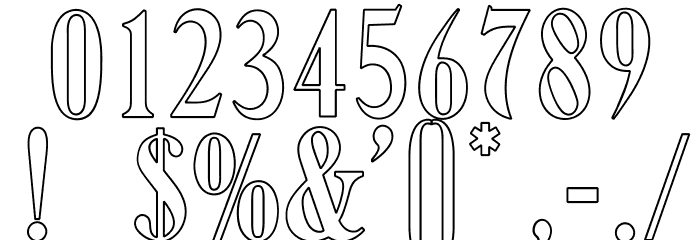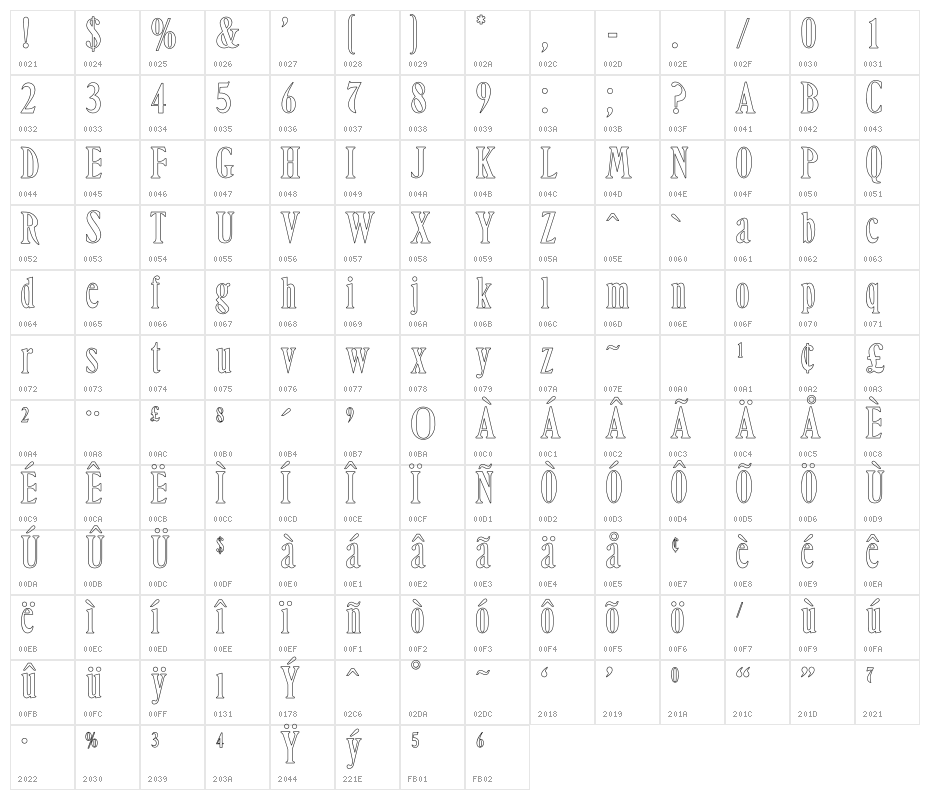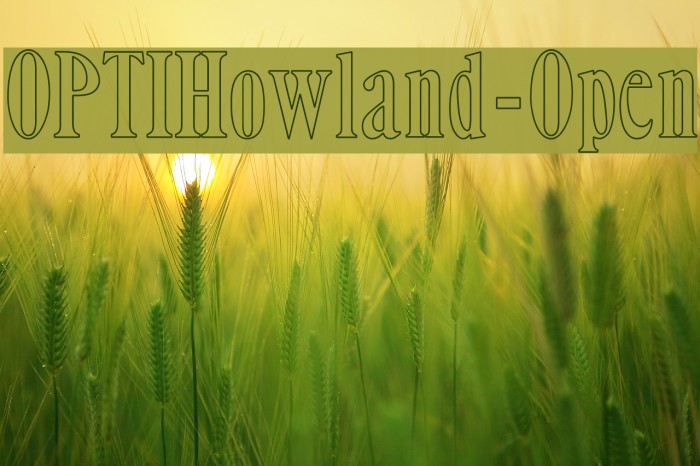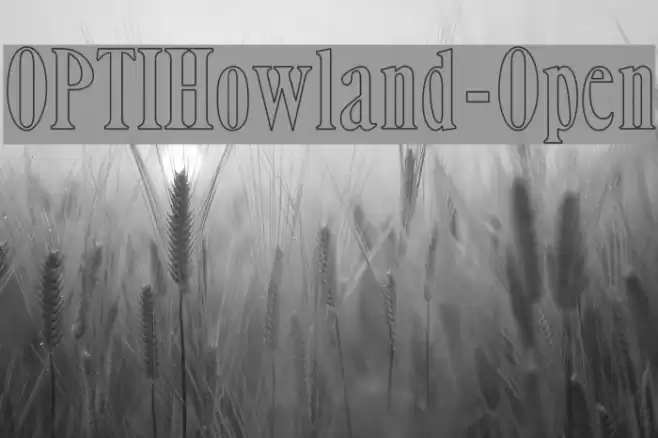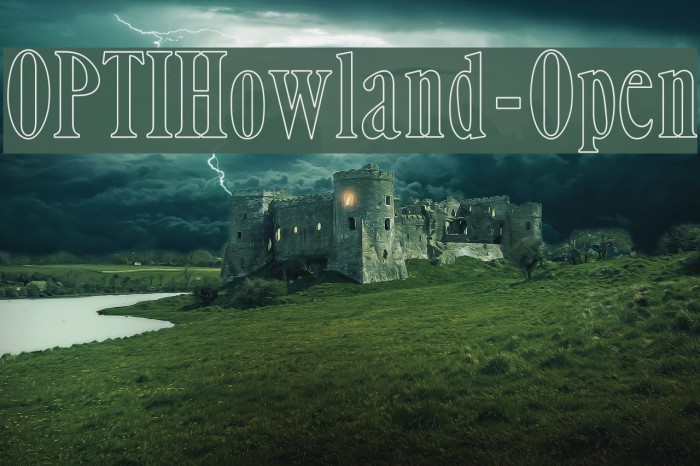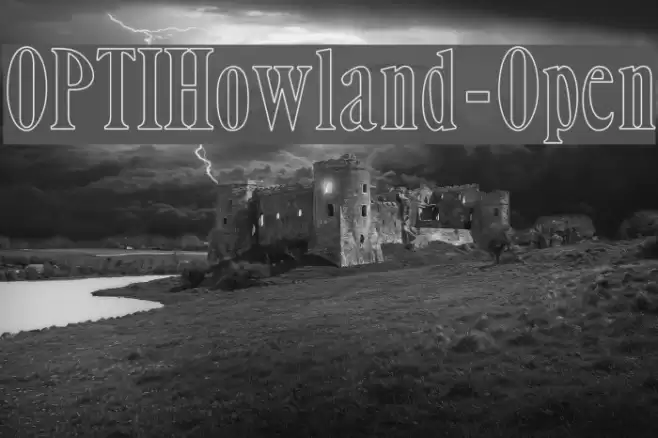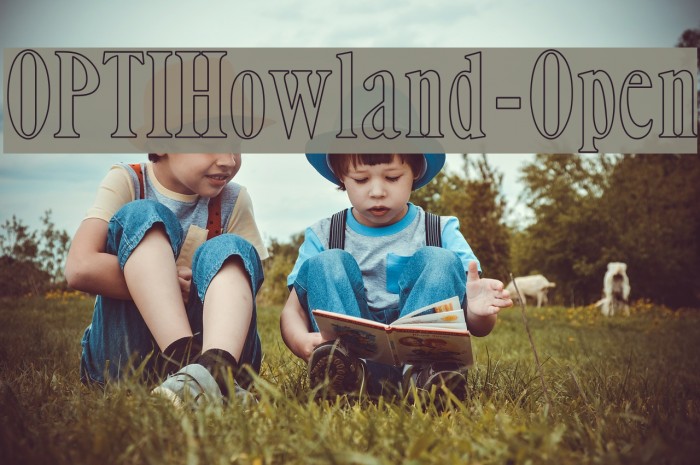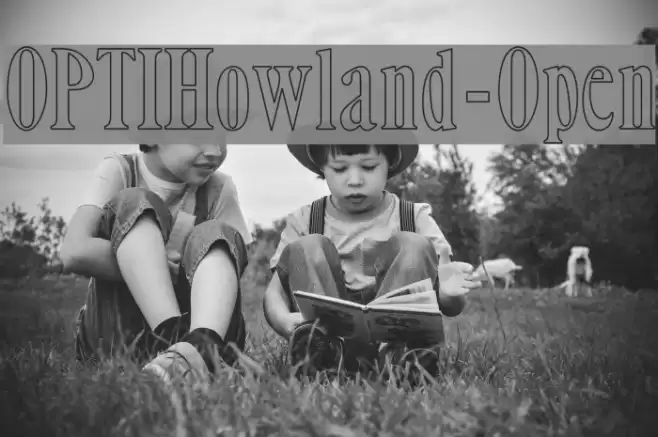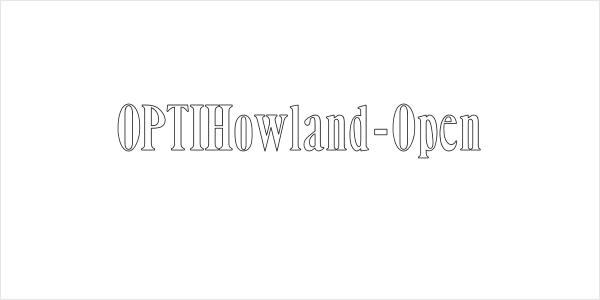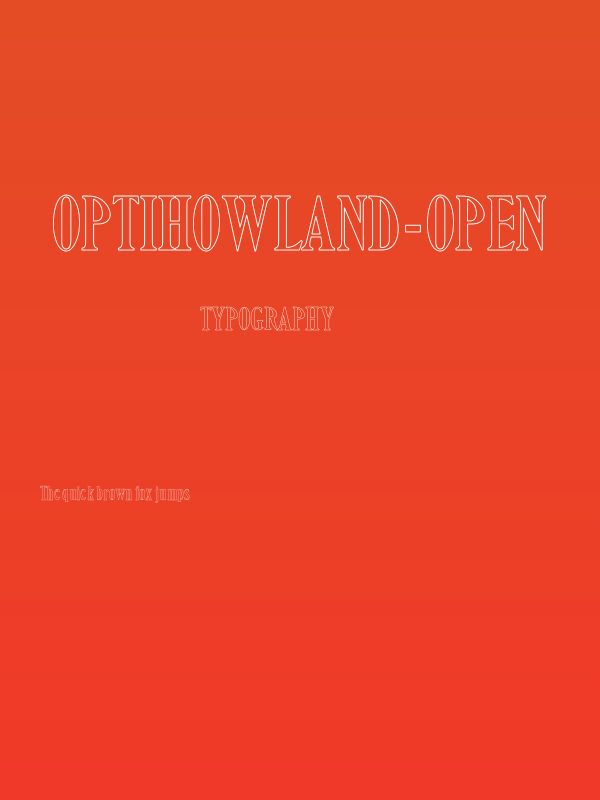
OPTIHowland-Open Font
OPTIHowland-Open Description
This font features a distinct outline style, characterized by its hollow, open design. Each letter is crafted with precision, showcasing a balance between elegance and readability. The uppercase letters exhibit a tall, narrow form, while the lowercase letters maintain a consistent flow, enhancing the overall harmony of the typeface. The numerals are designed with similar attention to detail, ensuring clarity and uniformity. Special characters are included, adding versatility to the font. The overall aesthetic is both modern and classic, making it suitable for a variety of design applications.
| Use Case | Headlines, Logos, Decorative |
| Proposed Projects | Ideal for headlines, posters, branding, and decorative purposes. |